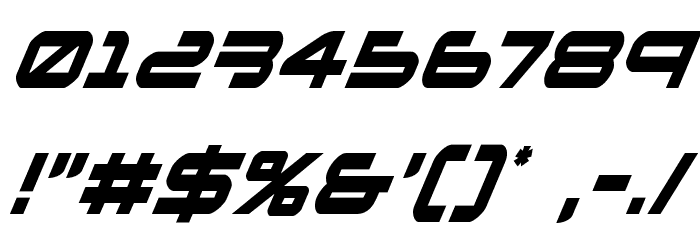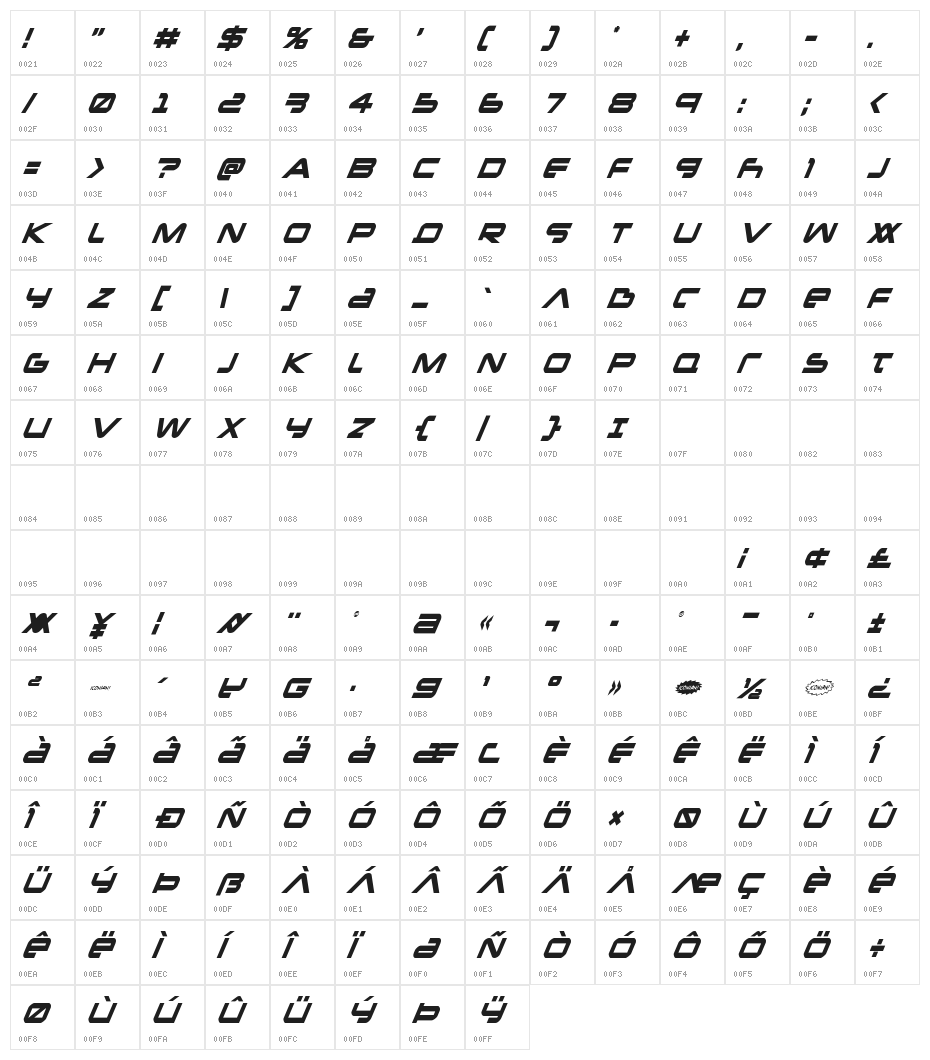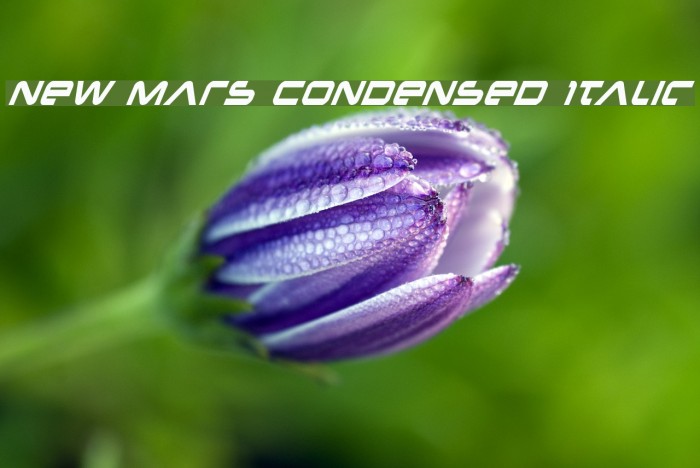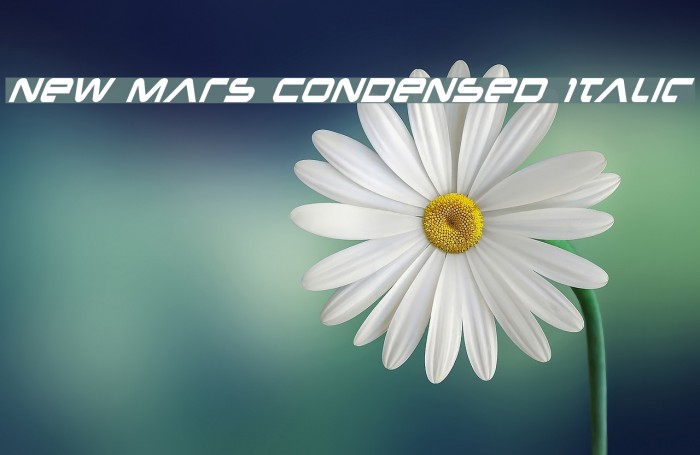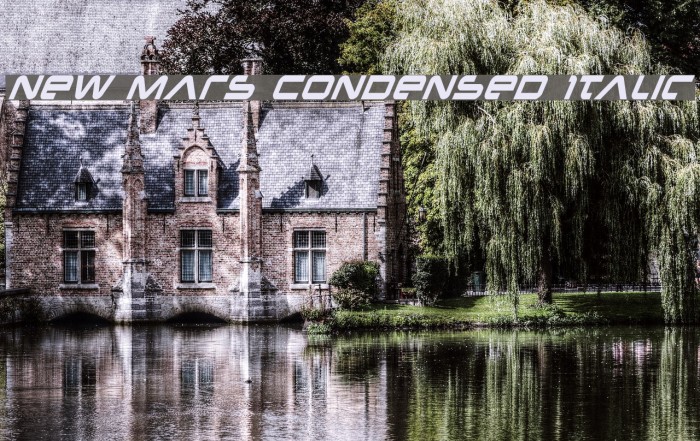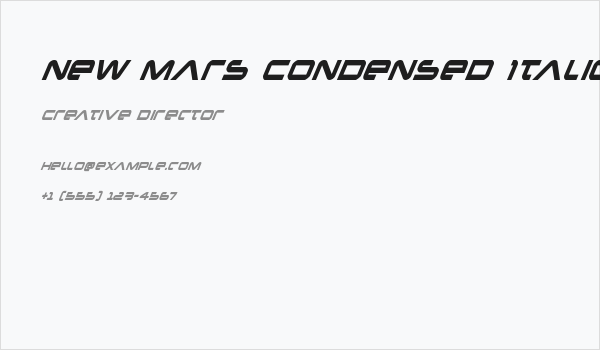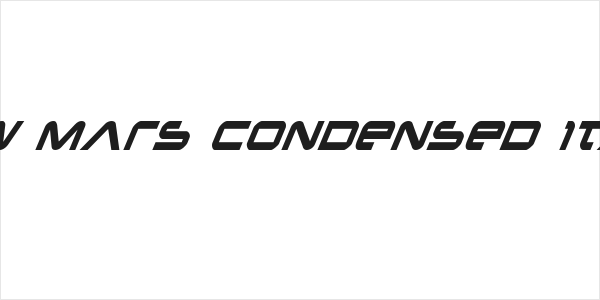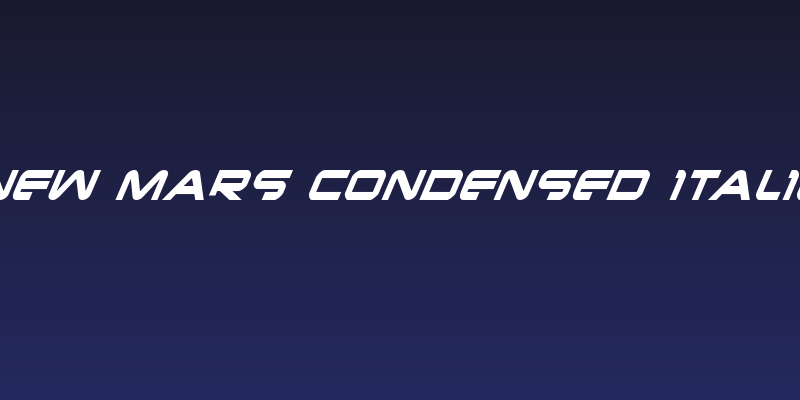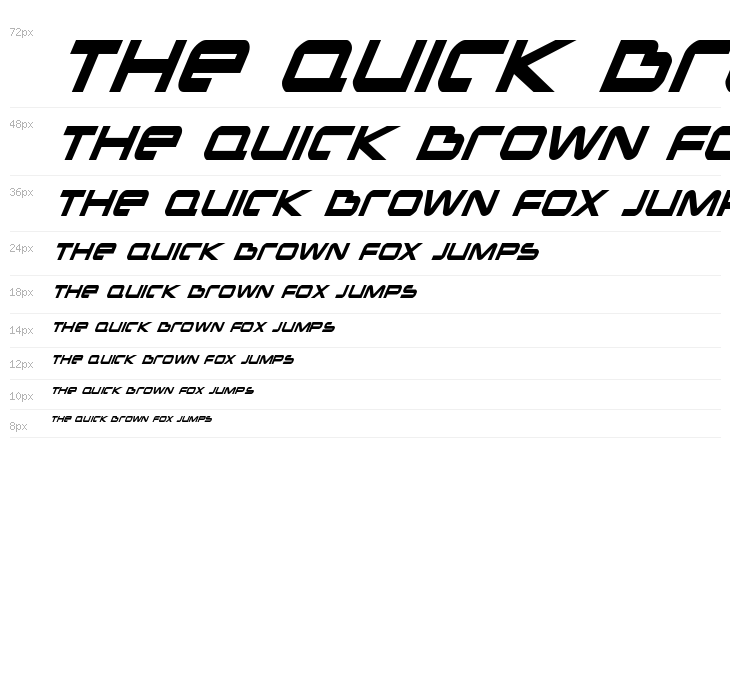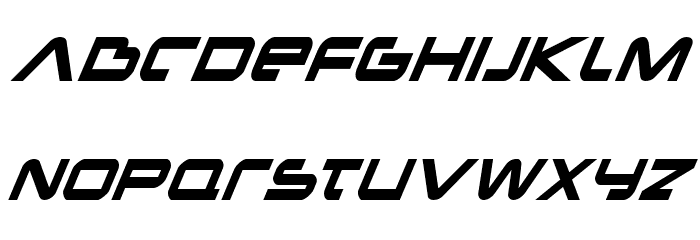
New Mars Condensed Italic Font
New Mars Condensed Italic Description
This font features a sleek, futuristic design with a condensed and italicized style. The characters are sharply angled, giving a sense of motion and speed. The uppercase and lowercase letters maintain a consistent slant, enhancing the dynamic appearance. The numbers and special characters follow the same aesthetic, ensuring uniformity across all glyphs. The overall look is modern and tech-inspired, making it suitable for projects that require a cutting-edge or innovative feel.
| Proposed Projects | Ideal for technology branding, sci-fi movie posters, video game titles, and modern advertising campaigns. |